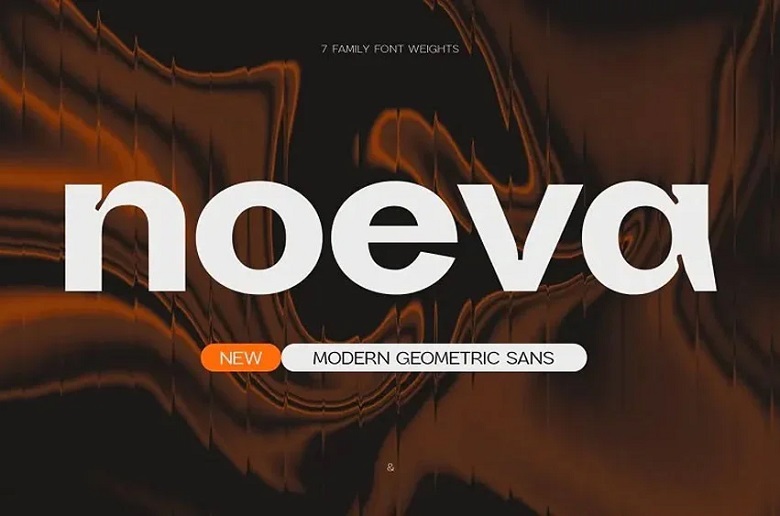
PNA Noeva Font Family
PNA Noeva is a new modern geometric sans font family that is a new take on the contemporary classic look. Designed with accuracy, Noeva comes with 7 dynamic weights that will enable you to switch between styles as you work. The design is based on a grid which, combined with the unique inktrap detailing, makes every character highly legible.
Whether you’re creating a strong headline or using the plain text, Noeva’s elegant character will make your work look even better. Welcome to the future with Noeva where beauty and usability coexist.
PNA Noeva Sans Serif Font Family